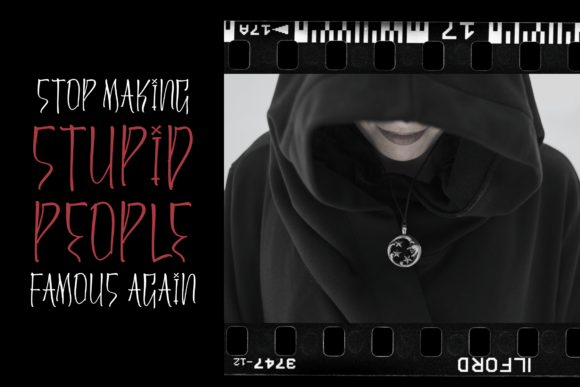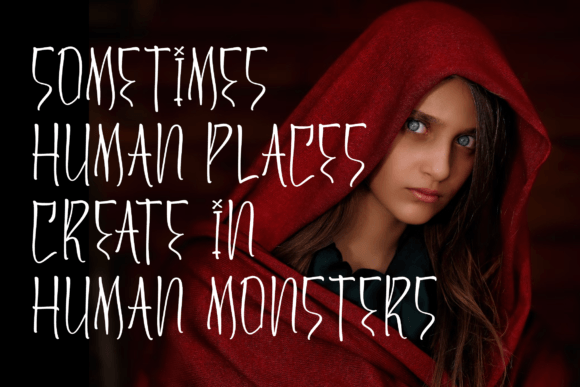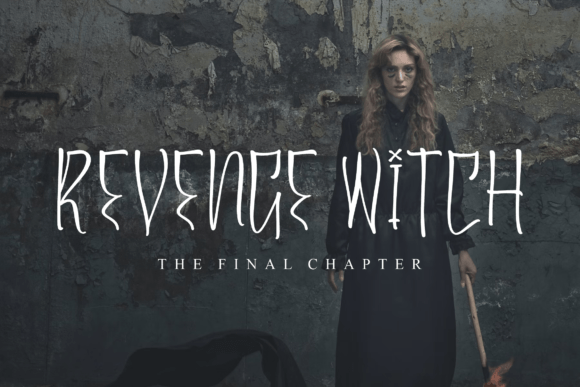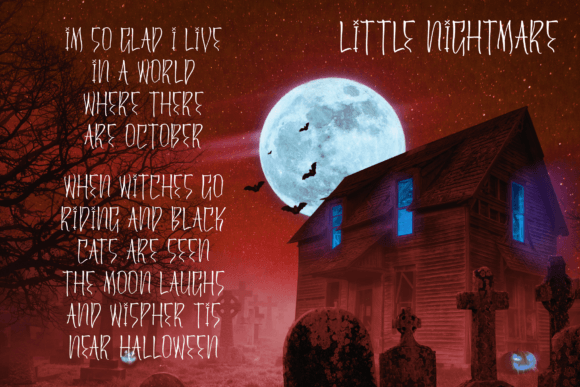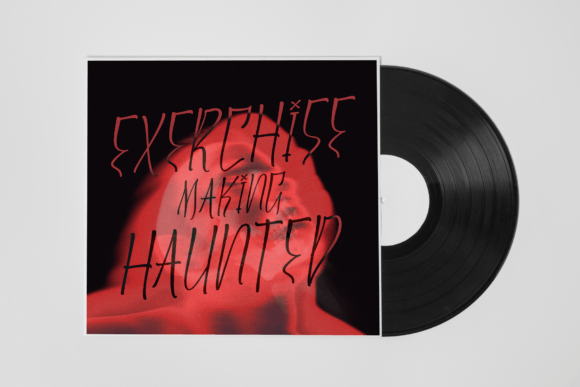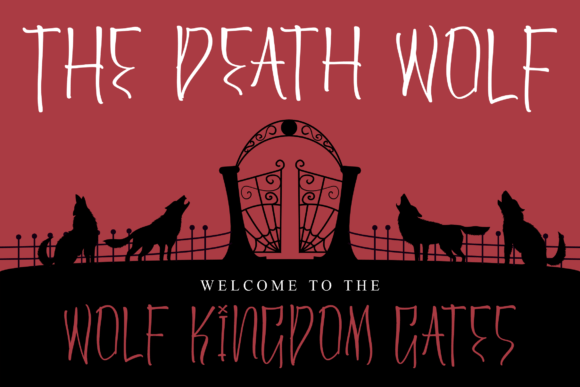
Introduction to Hysteria Witcher Font
Hysteria Witcher is a creepy and scary handwritten font.
Spooky and mysterious, this font is perfect for creating thrilling designs, Halloween posters, horror party invitations, or anything that requires a dramatic look .